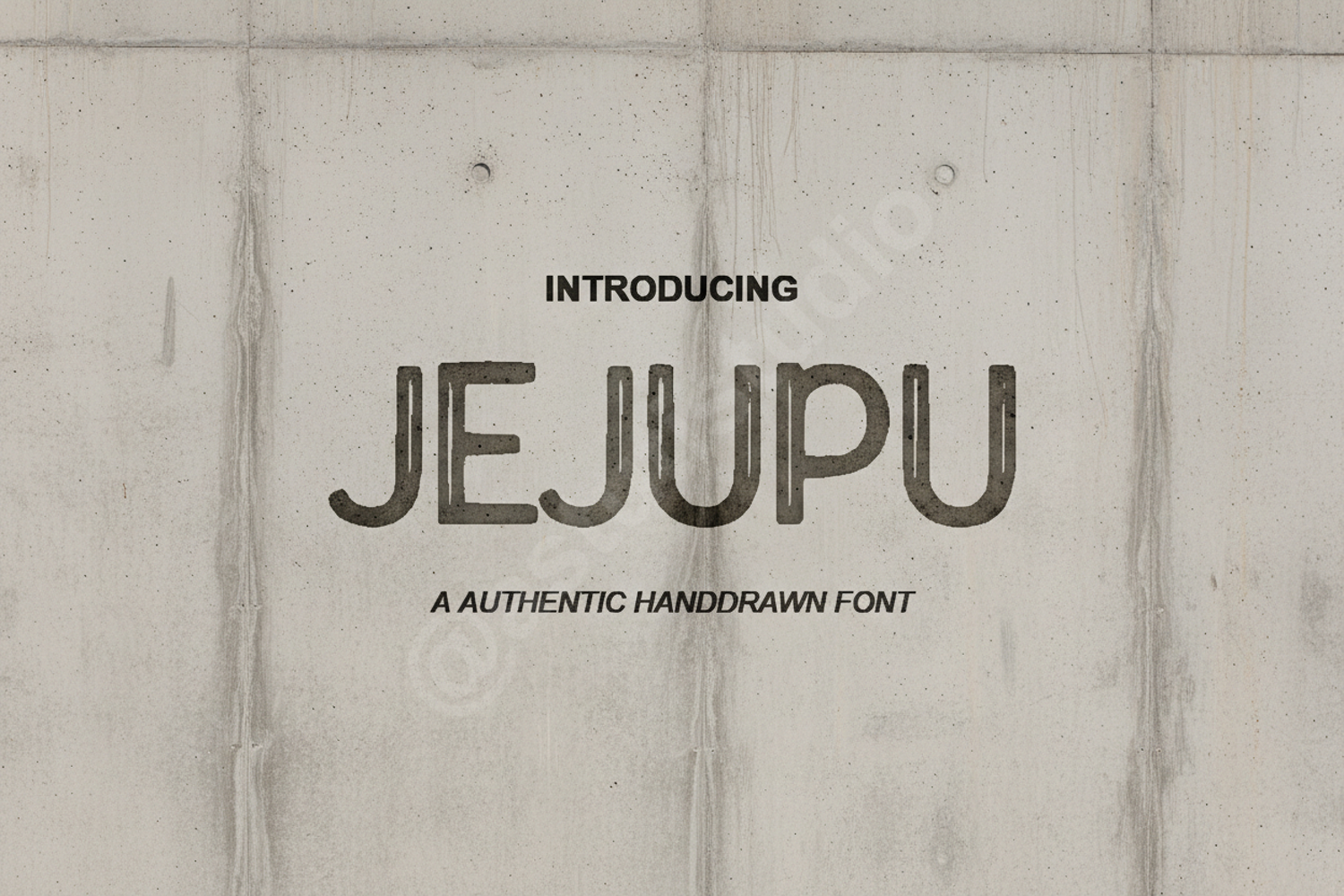
Jejupu - Modern Minimalist Sans Serif Font
Jejupu
Jejupu is a premium sans serif typeface meticulously designed to balance modern minimalism with sophisticated elegance. This font offers a clean and timeless aesthetic, making it an essential addition to any designer's toolkit. Whether you are aiming for a high-end luxury feel or a sleek contemporary look, Jejupu provides the versatility and clarity required for professional results.
- Branding and Logo Design: Establish a strong, professional visual identity with crisp letterforms.
- Wedding Stationery: Create elegant and modern invitations, save-the-dates, and event signage.
- Editorial Layouts: Perfect for magazine headlines, subheaders, and clean body text.
- Digital Marketing: Enhance social media graphics and web banners with high-readability typography.
- Product Packaging: Give your products a high-end, boutique feel through sophisticated type design.